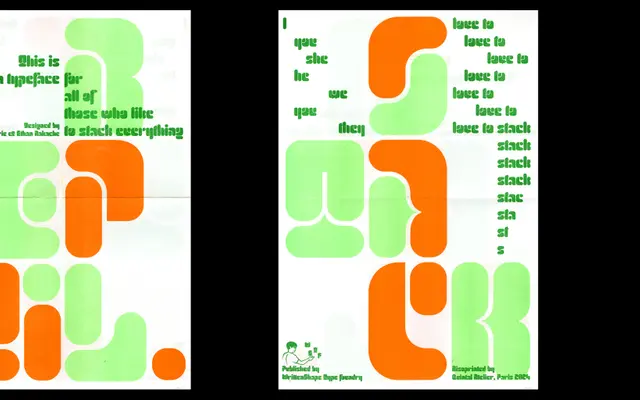
Reptil
Writtenshape · Raphaël de La Morinerie & Ethan Nakache
A circular-modular revival of Bob Newman's 1971 Letraset typeface Turtle, rebuilt from first principles by two French designers.
Built on the discovery that the original Turtle was constructed entirely from circular shapes, Raphaël de La Morinerie and Ethan Nakache extended that modular logic into a complete, contemporary character set. Compact capitals form dense typographic blocks, while the lowercase retains the eccentric legibility-limit quality of the source material. Available in a single Regular weight with broad Latin Extended coverage, it suits editorial, poster and identity work where geometric retro energy is the point.
Reptil is a modular display typeface built entirely around circular forms, reviving the geometric construction logic of Letraset's Turtle (1971) with a contemporary precision. Its compacted capitals and strikingly shaped lowercase push legibility to its limits, placing it firmly in the display category.